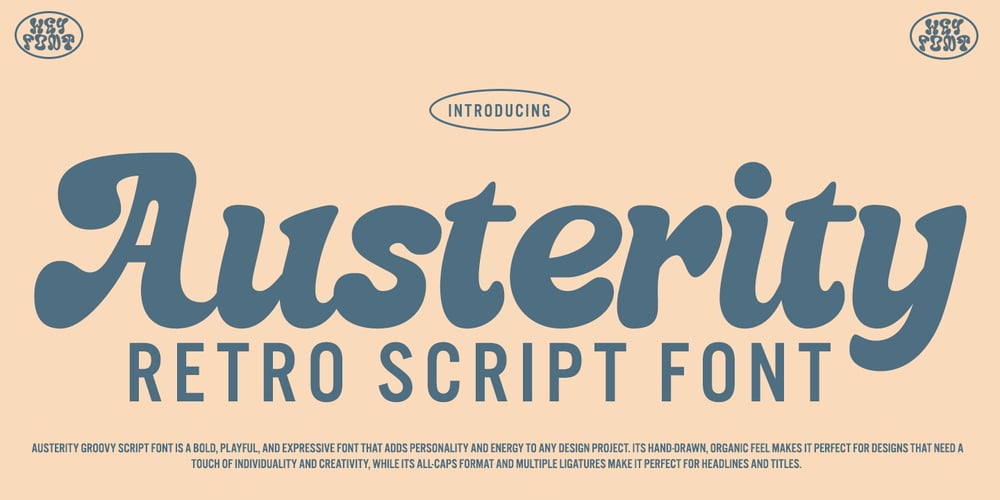
Austerity
Austerity font
Austerity Font Family was designed by Asep Rendy and published by Heyfonts. Austerity contains 1 styles and family package options. Austerity Retro Script font is a vintage-inspired typeface that is perfect for creating classic design projects. Its elegant and curvy handwritten style makes it ideal for conveying a sense of nostalgia and timeless sophistication. This font is available in both regular and bold weights and includes uppercase and lowercase letters, numbers and punctuation symbols.Some of its features include:-Vintage Style: Austerity Retro Script font captures the essence of the golden age of typography with its retro-style design. It is perfect for creating vintage posters, product packaging, branding, and more.-Handwritten Appearance: The font has a unique and playful handwritten appearance, with smooth curves and a natural flow. It captures the essence of calligraphy and is perfect for conveying a sense of personal touch.-Bold and Regular Weights: Austerity font is available in both bold and regular weights, giving designers flexibility to mix and match them to achieve a wide range of styles.-Uppercase and Lowercase Letters: The font includes both uppercase and lowercase letters, making it easy to create a variety of typographic combinations for your designs.-Punctuation Symbols and Numbers: Austerity font also includes a range of punctuation symbols and numbers, making it a versatile typeface for a wide range of projects.-Multilingual Support: The font supports multiple languages, including English, French, German, Portuguese, Spanish and more.Overall, Austerity font is a perfect choice for designers who want to create a vintage feel in their design projects. Its handwritten style, bold and regular weights, and range of symbols and numbers make it a versatile and reliable font for any design project.